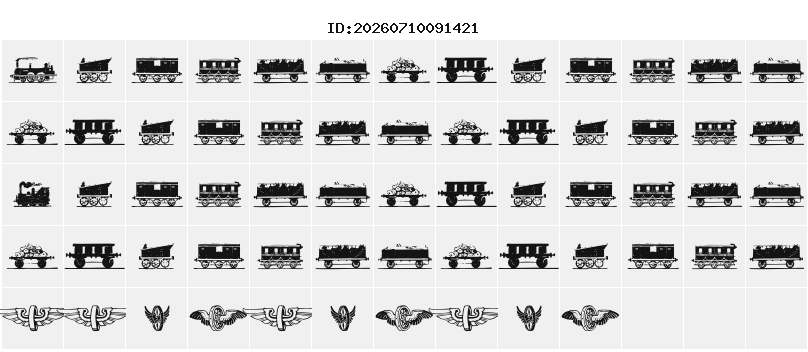
Eisenbahn Preview
• Font Name: Eisenbahn
• Designer: Dieter Steffmann
• Description: Eisenbahn-Vignetten nach Zeichnungen der Bauerschen Giesserei. Digitalisiert durch Dieter Steffmann, Kreuztal.
About Eisenbahn.otf